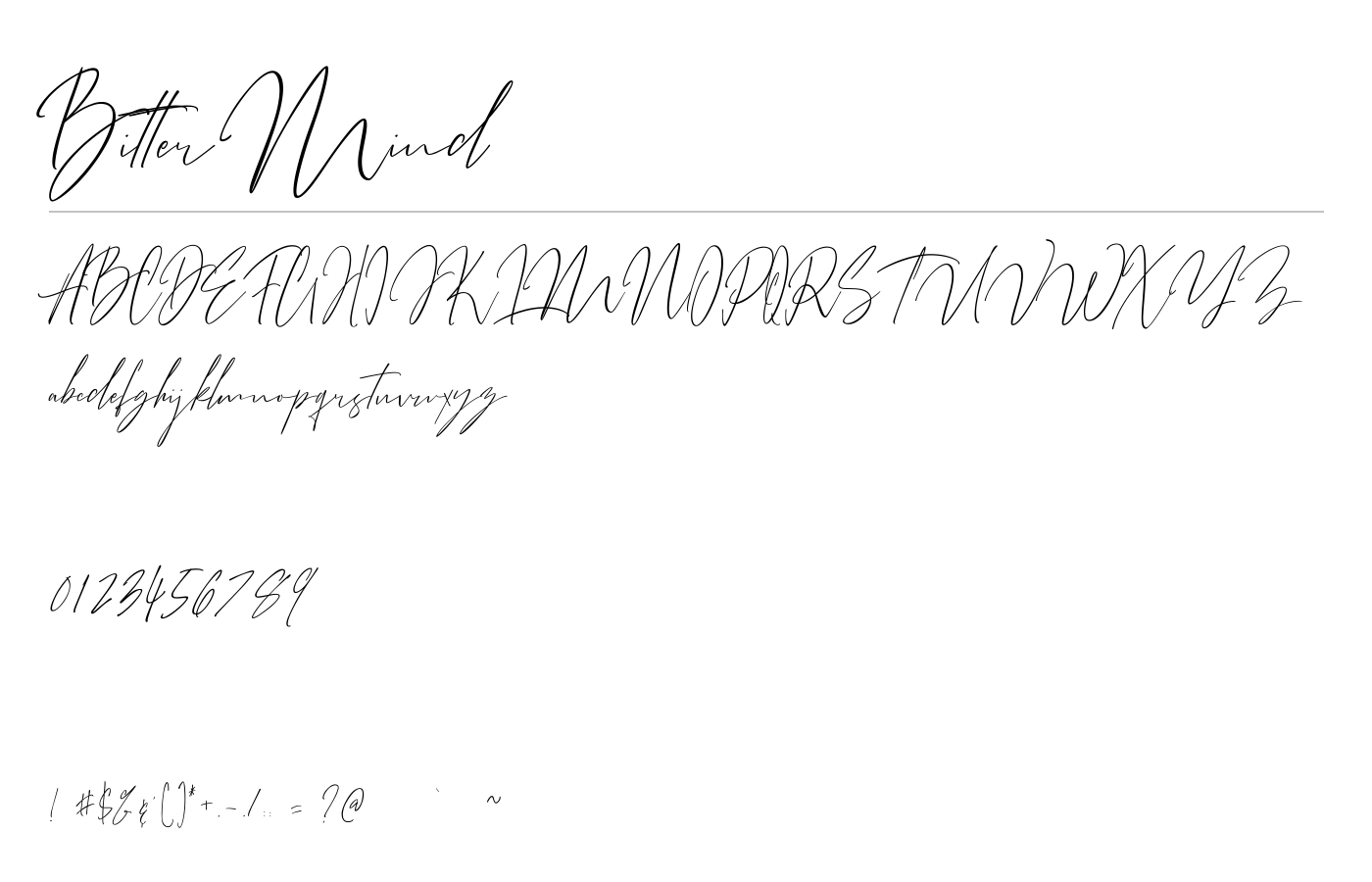
Bitter Mind is a delicate and elegant handwritten script font characterized by its thin, flowing lines and high contrast stroke weight. Its slender, slightly elongated letterforms create a graceful and personal feel, making it ideal for sophisticated branding, invitations, and expressive headlines where a refined, artistic touch is desired. This font adds a sense of intimacy and style, perfect for fashion, beauty, or creative projects that aim to convey elegance and individuality.
Bitter Mind Font
About Bitter Mind Font